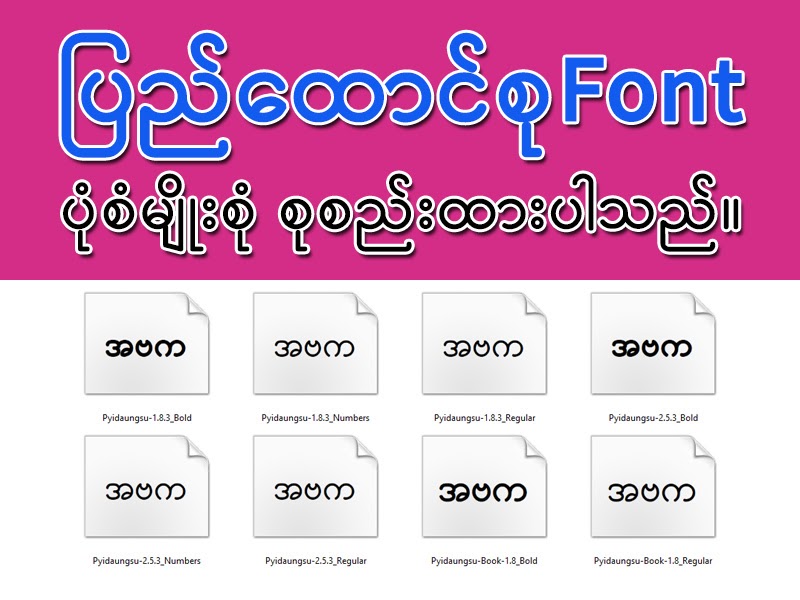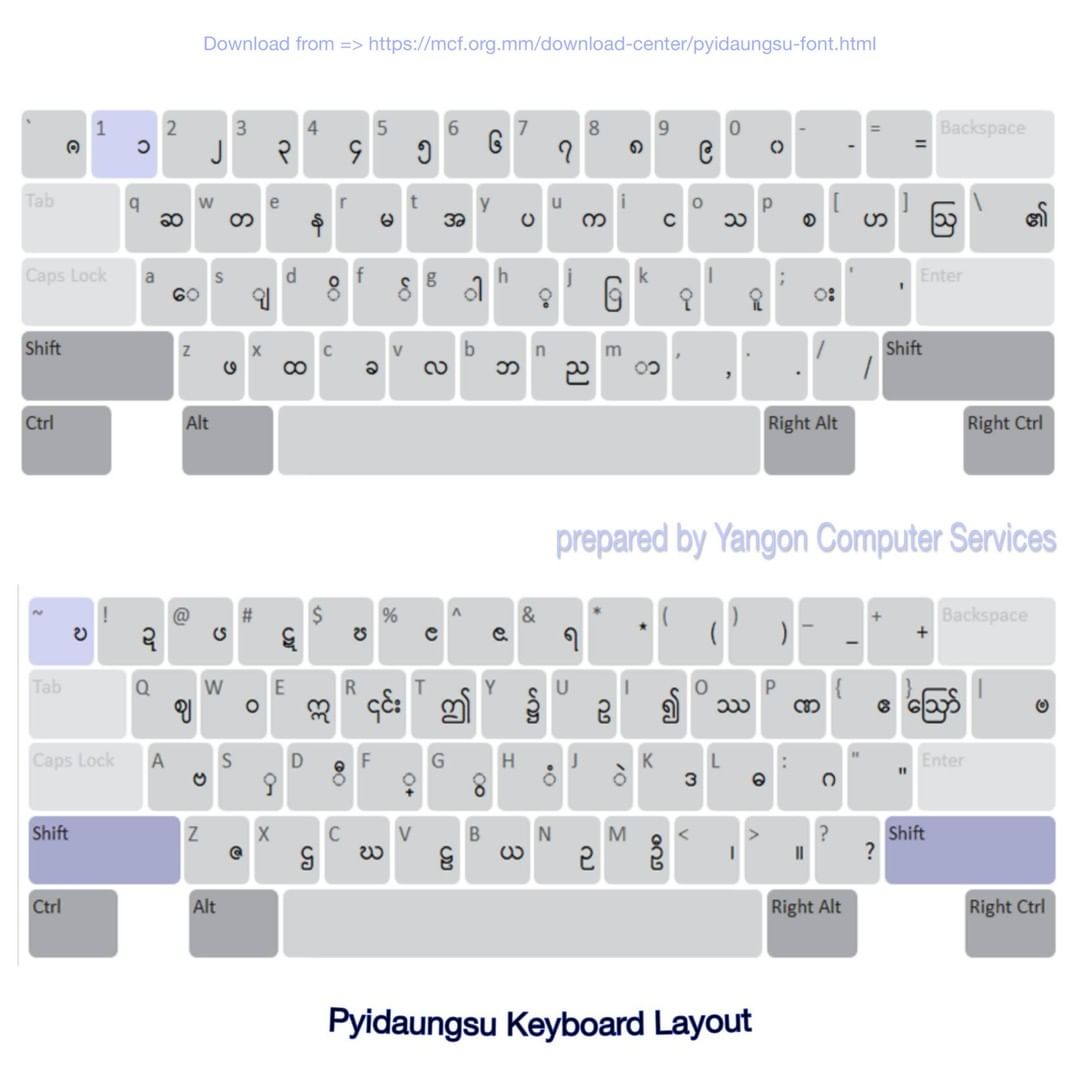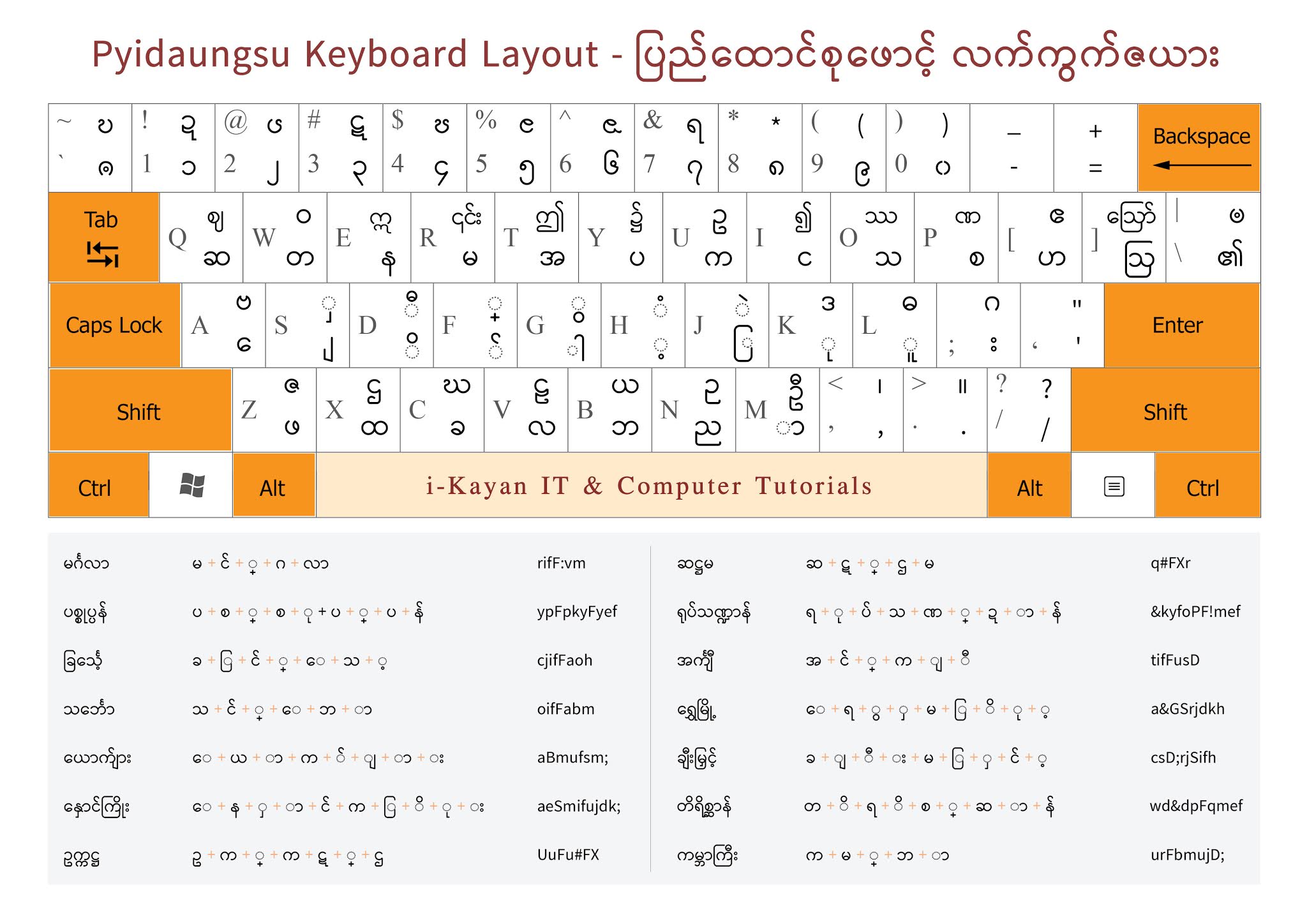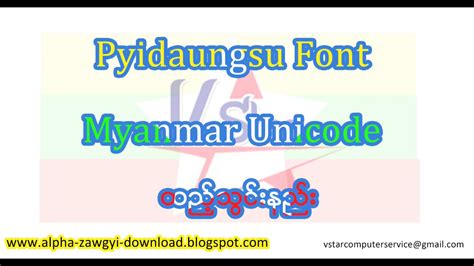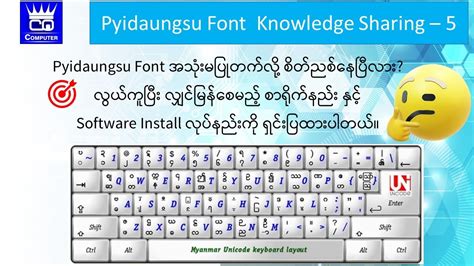
Pyi Daung Su Font
Pyi Daung Su Font - Web pyi daung su is a standard myanmar unicode font that can be used on the internet and in government offices.
Web pyi daung su is a standard myanmar unicode font that can be used on the internet and in government offices.